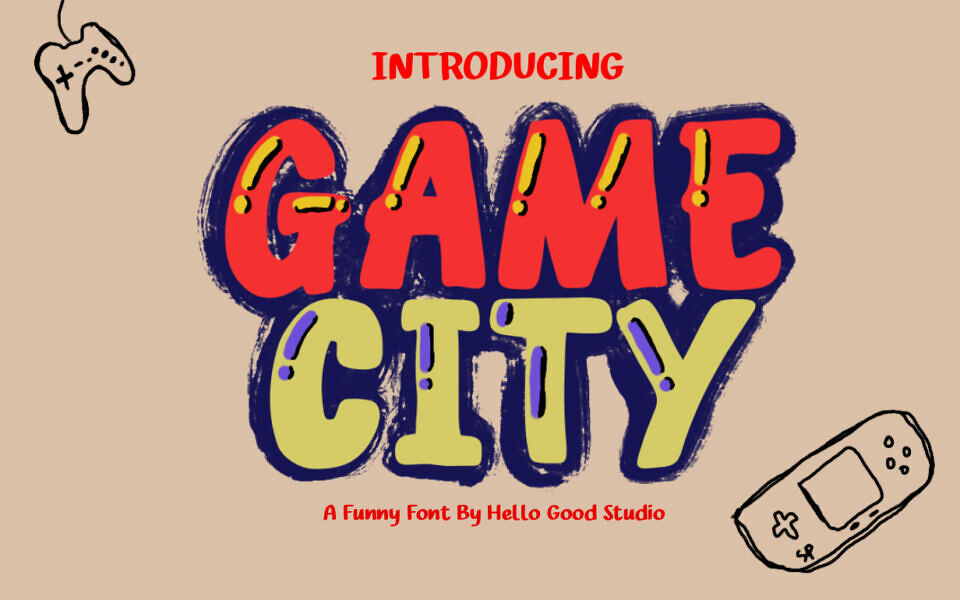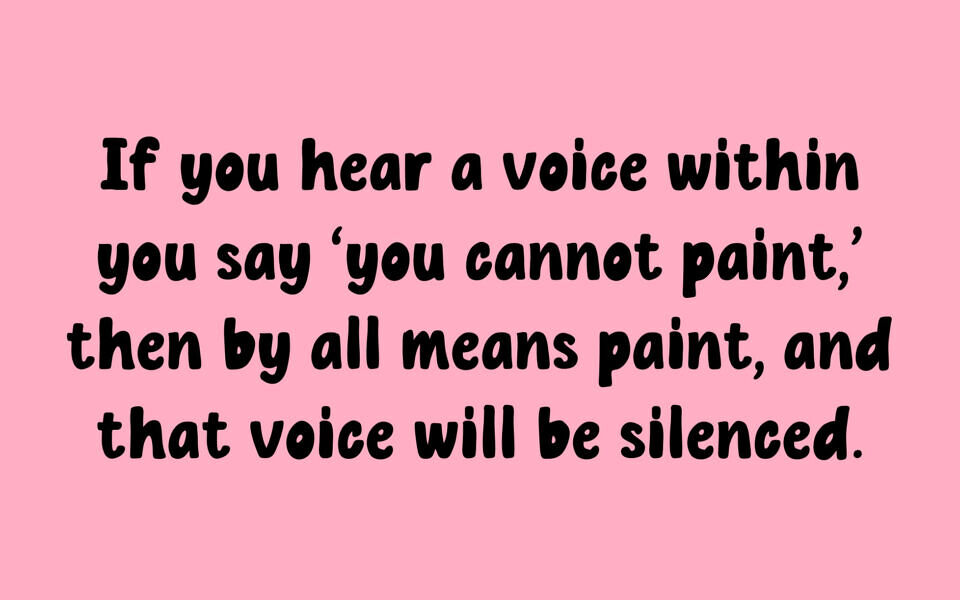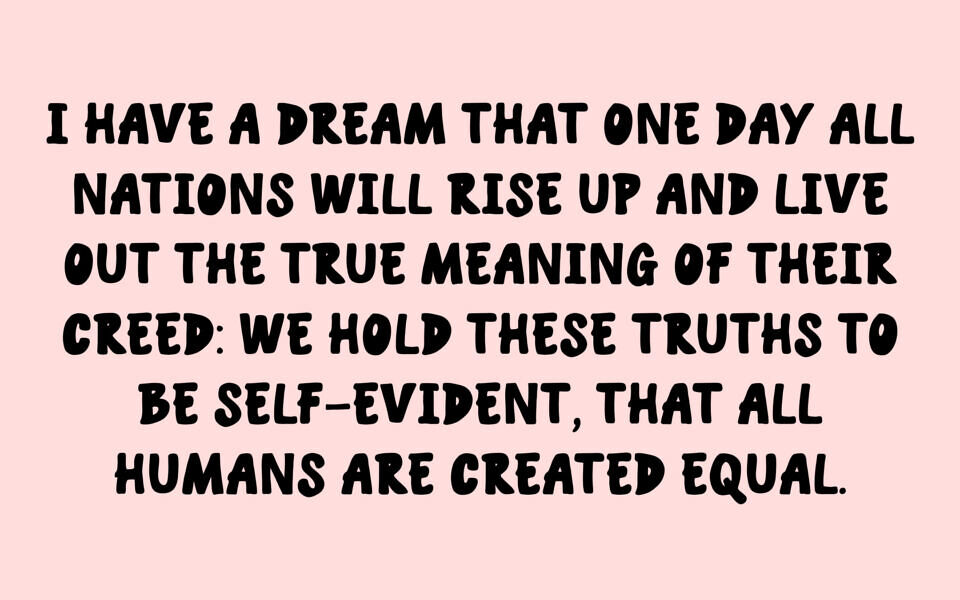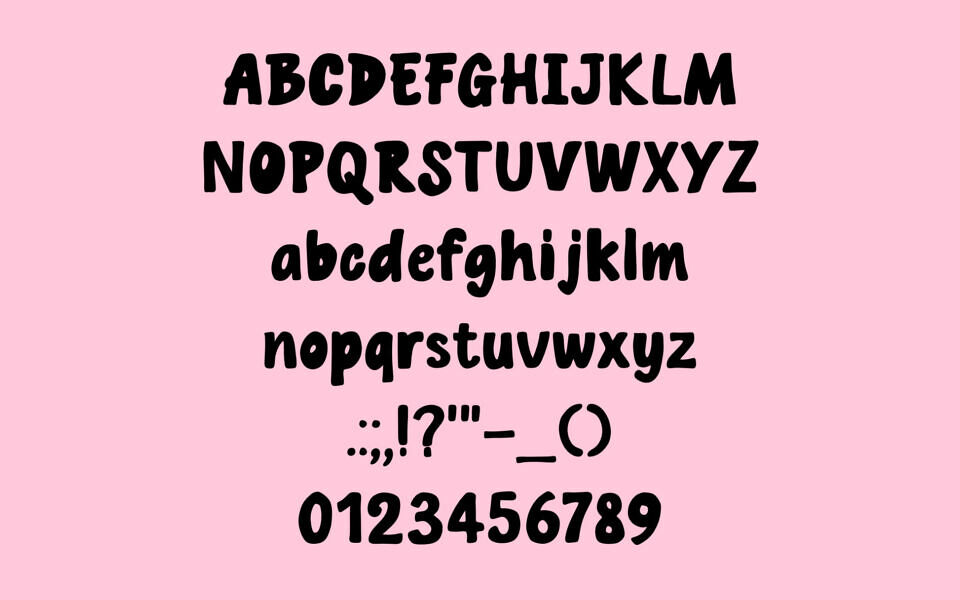
Game City is a bold and playful display font inspired by gaming culture and urban energy. Its chunky letterforms and dynamic style make it perfect for video game titles, posters, logos, YouTube thumbnails, and eye-catching branding.